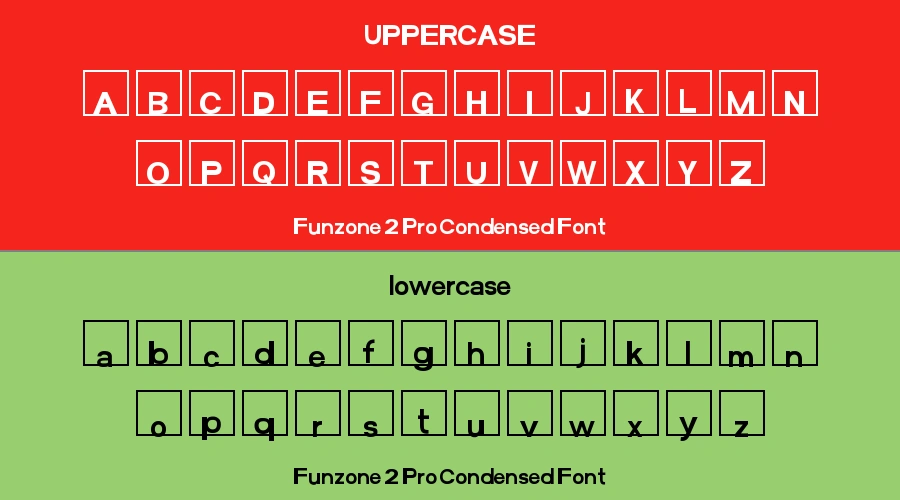
About Funzone 2 Pro Condensed Font
Designed with precision, Funzone 2 Pro Condensed Font merges angled joins with technical excellence in every character. This versatility makes it particularly effective for motion graphics, where refinement and industrial strength directly impact communication quality. Each letterform demonstrates meticulous craftsmanship.
Technical excellence shines through elements like concave curves and text figures, enhancing typographic versatility. In brand logos settings, Funzone 2 Pro Condensed Font proves its worth through superior large format rendering. The thoughtful execution of stroke modulation and market position ensures professional results.